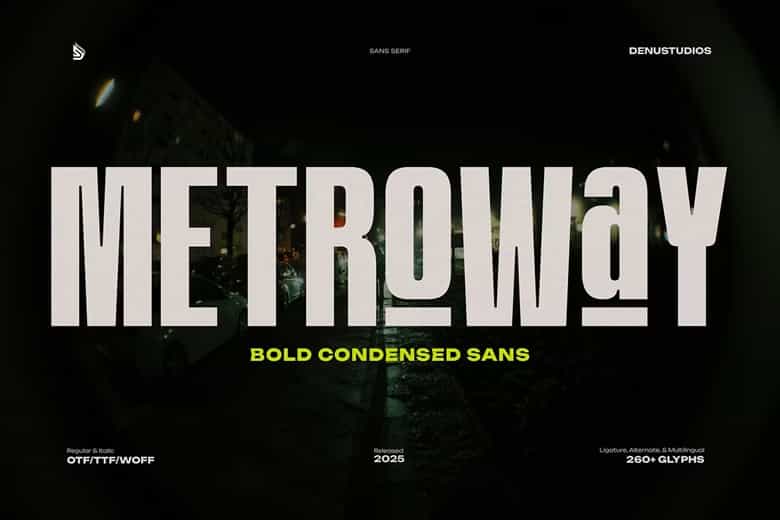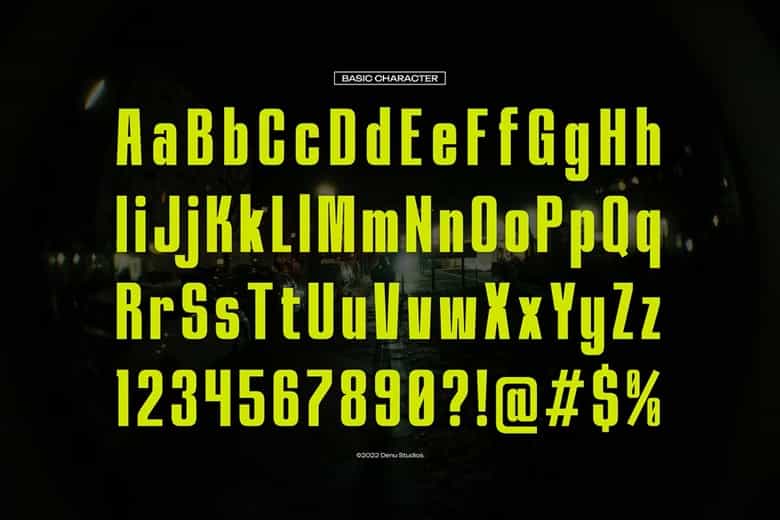
Metroway is an elegant bold condensed sans serif font, It’s suitable for any projects such as: logos, branding projects, homeware designs, product packaging, mugs, quotes, posters, shopping bags, t-shirts, book covers, name card, invitation cards, greeting cards, label, special events, and all your other lovely projects that need a bold sans serif taste.